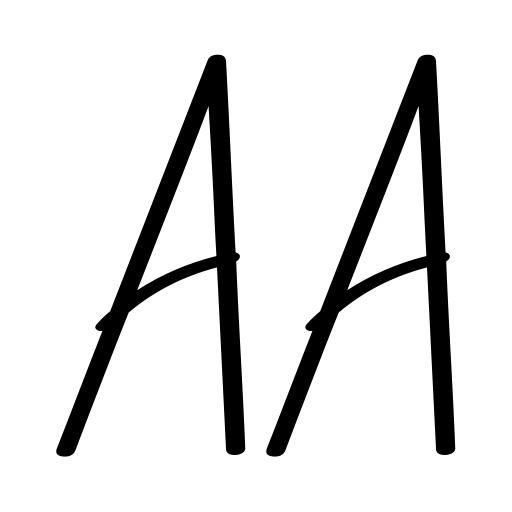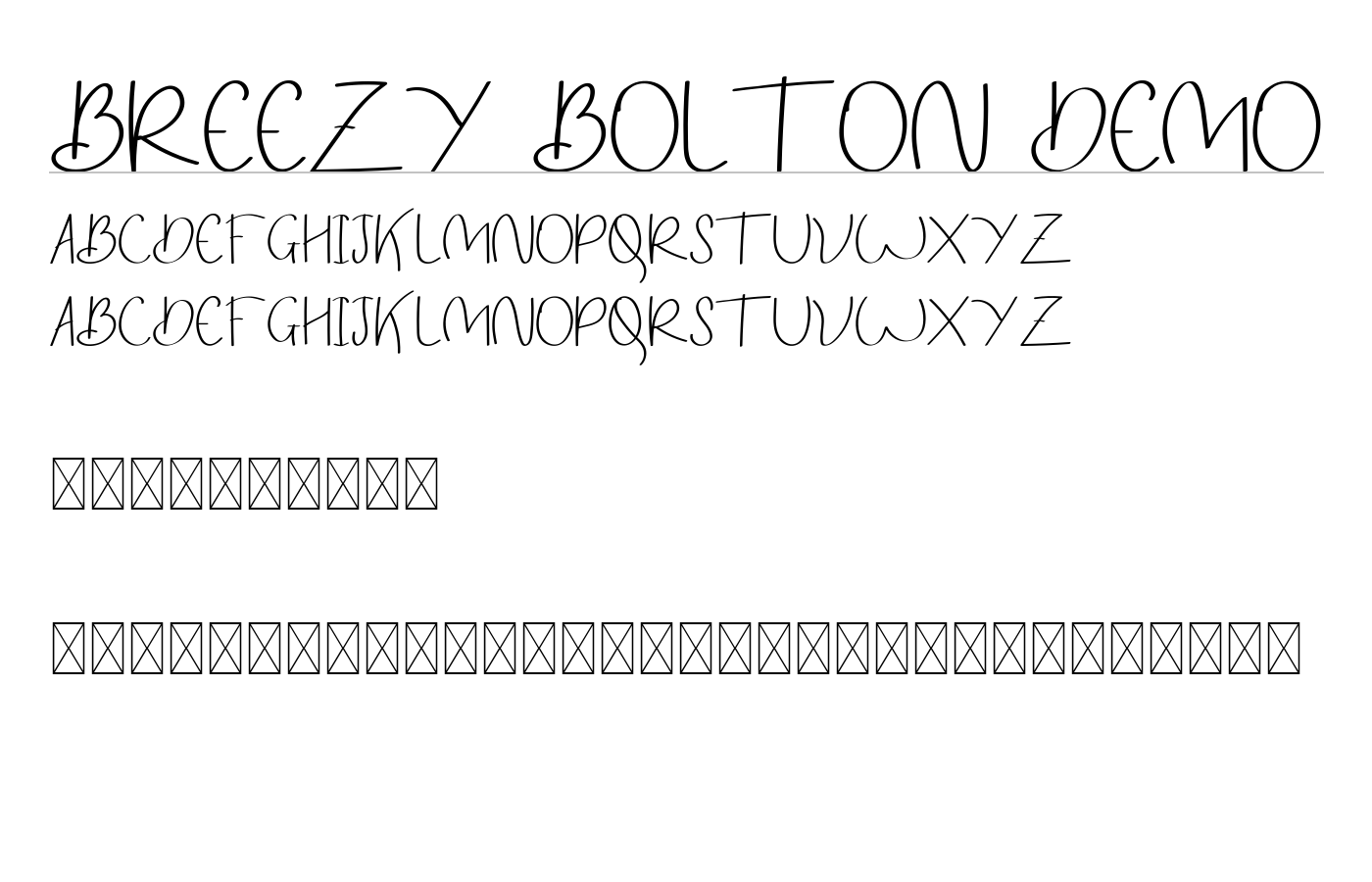
Breezy Bolton DEMO is a playful, handwritten sans serif font with a light weight and tall, narrow letterforms that give it a breezy, carefree feel. Its thin strokes and quirky, slightly irregular shapes make it perfect for creative projects that want to express a casual, friendly vibe. This font works well for logos, invitations, and informal headings where a unique, personal touch is desired.
Breezy Bolton DEMO Font
About Breezy Bolton DEMO Font